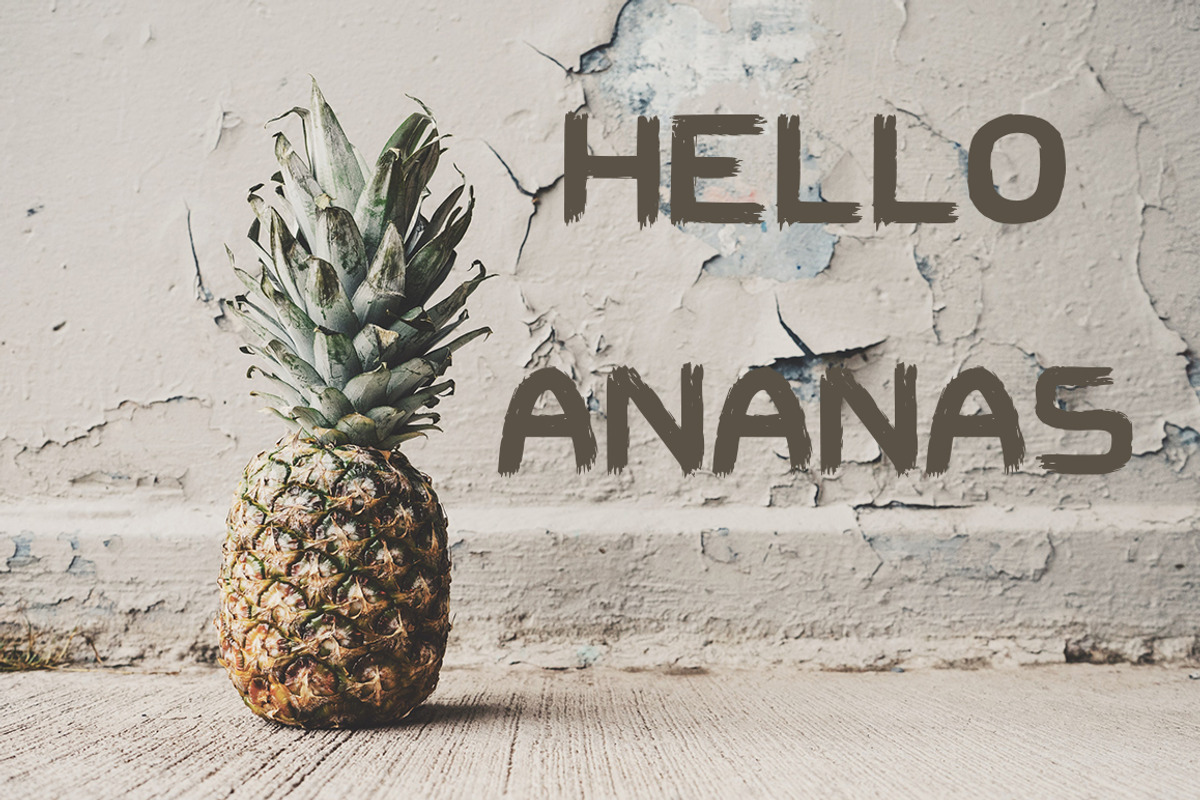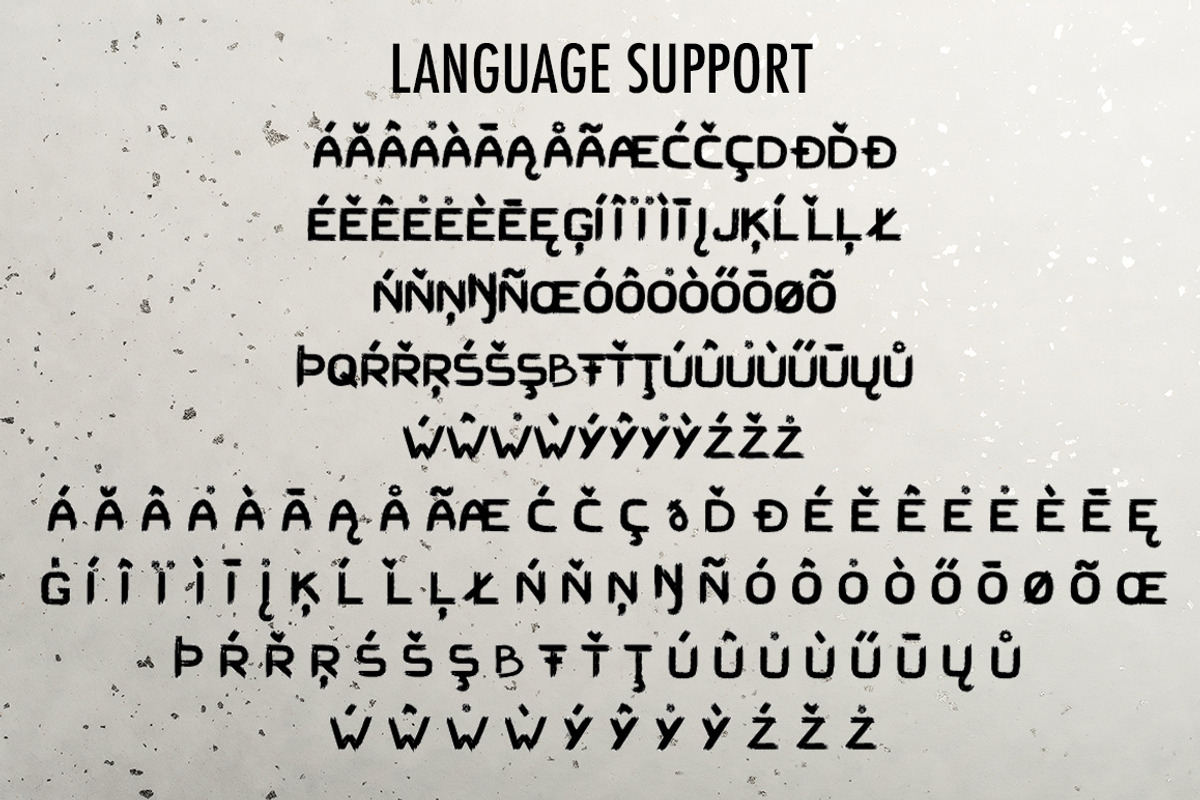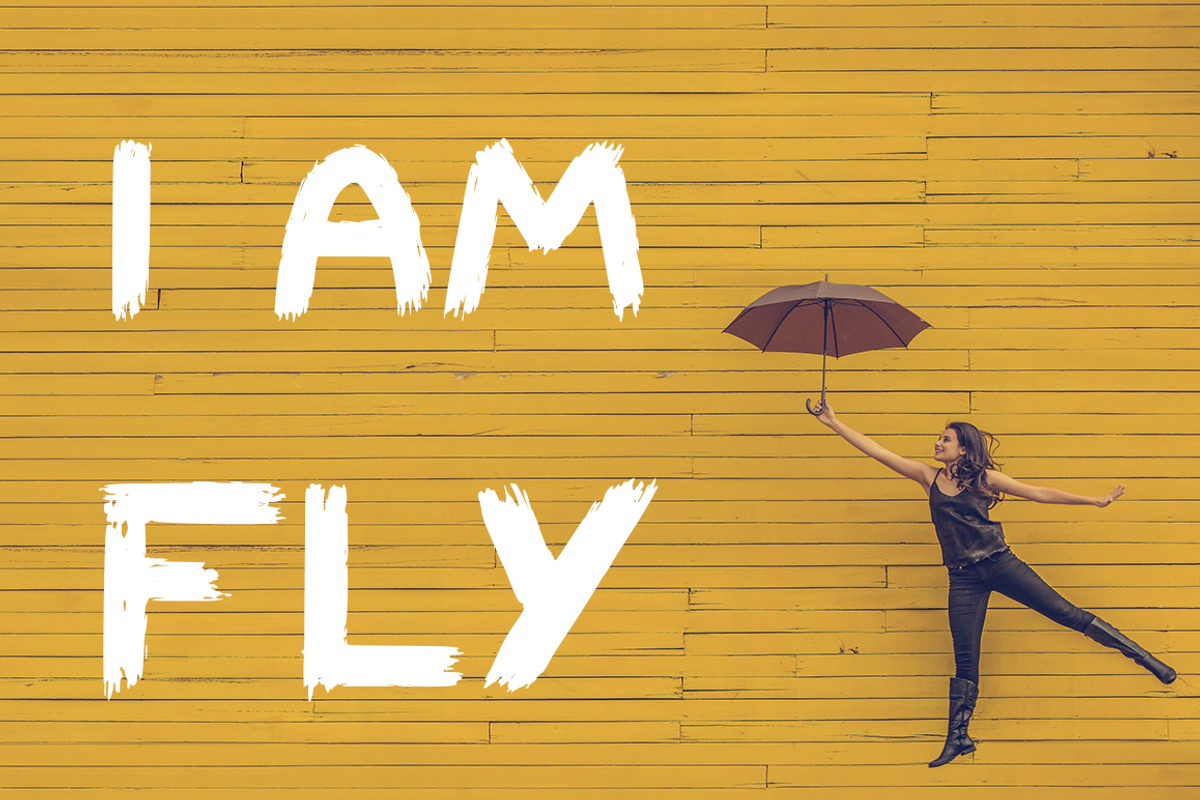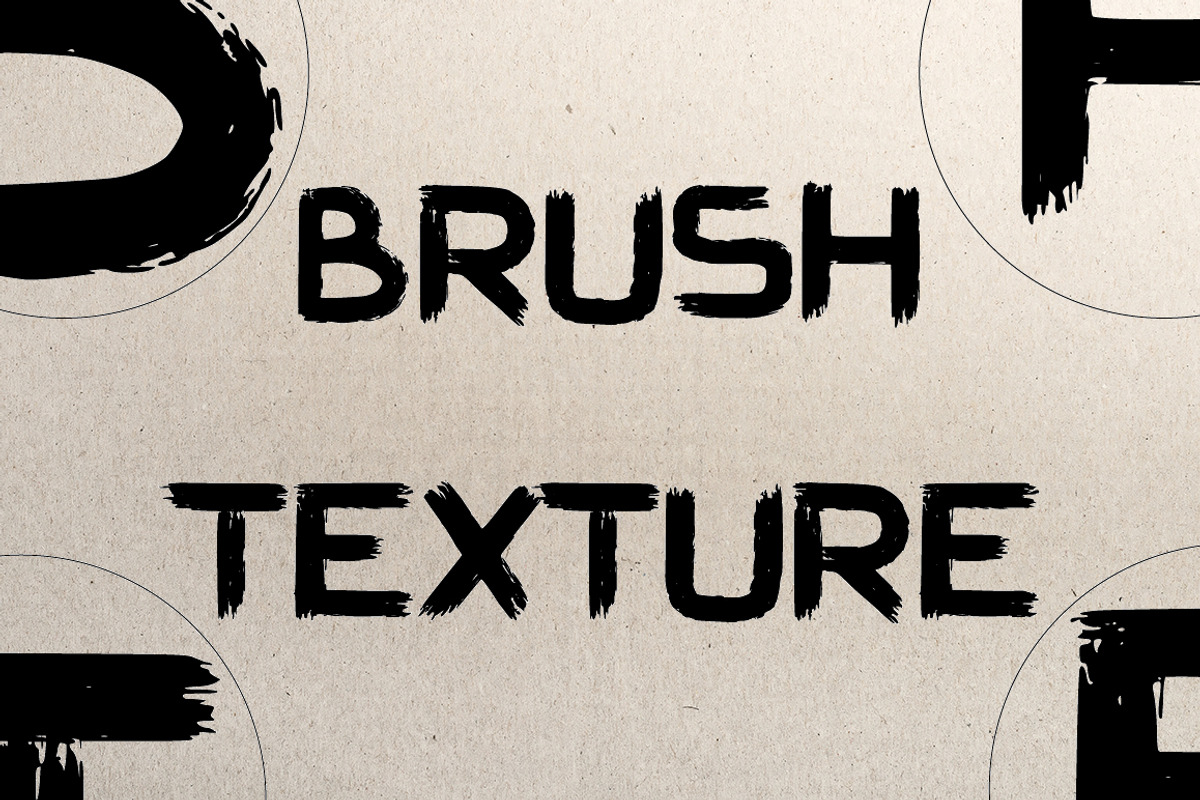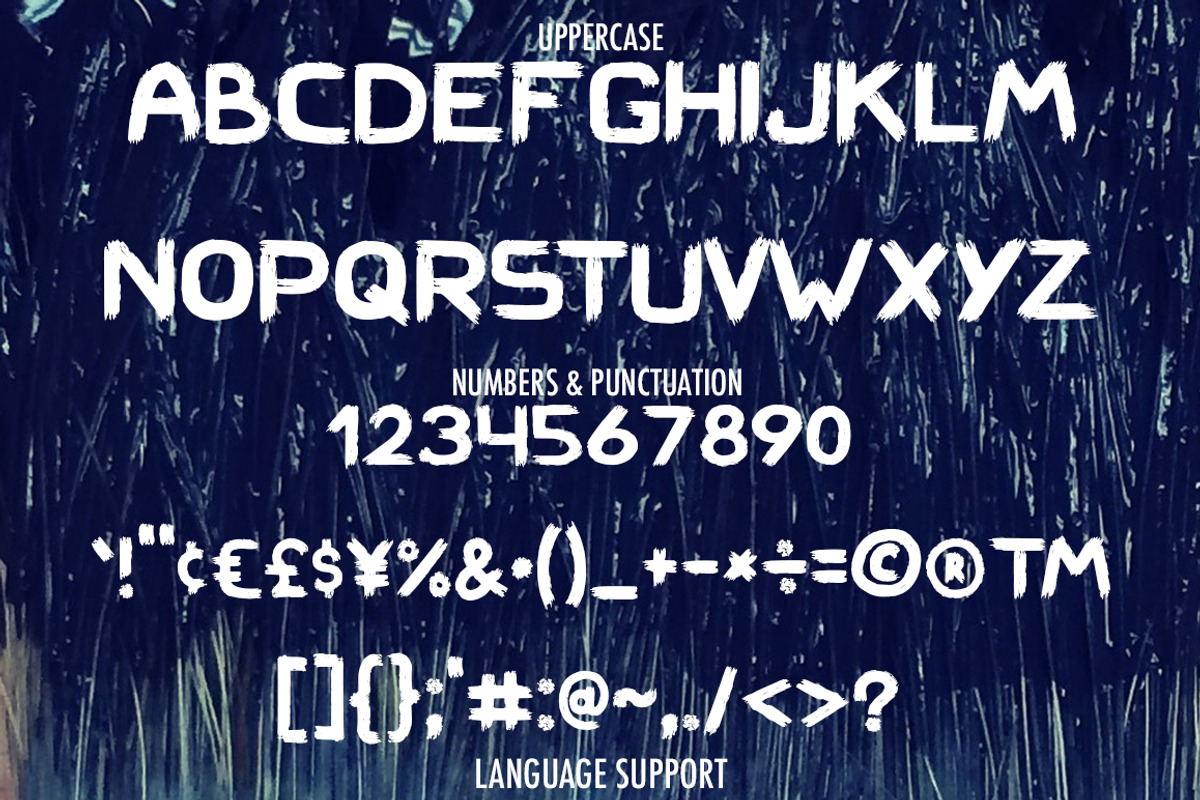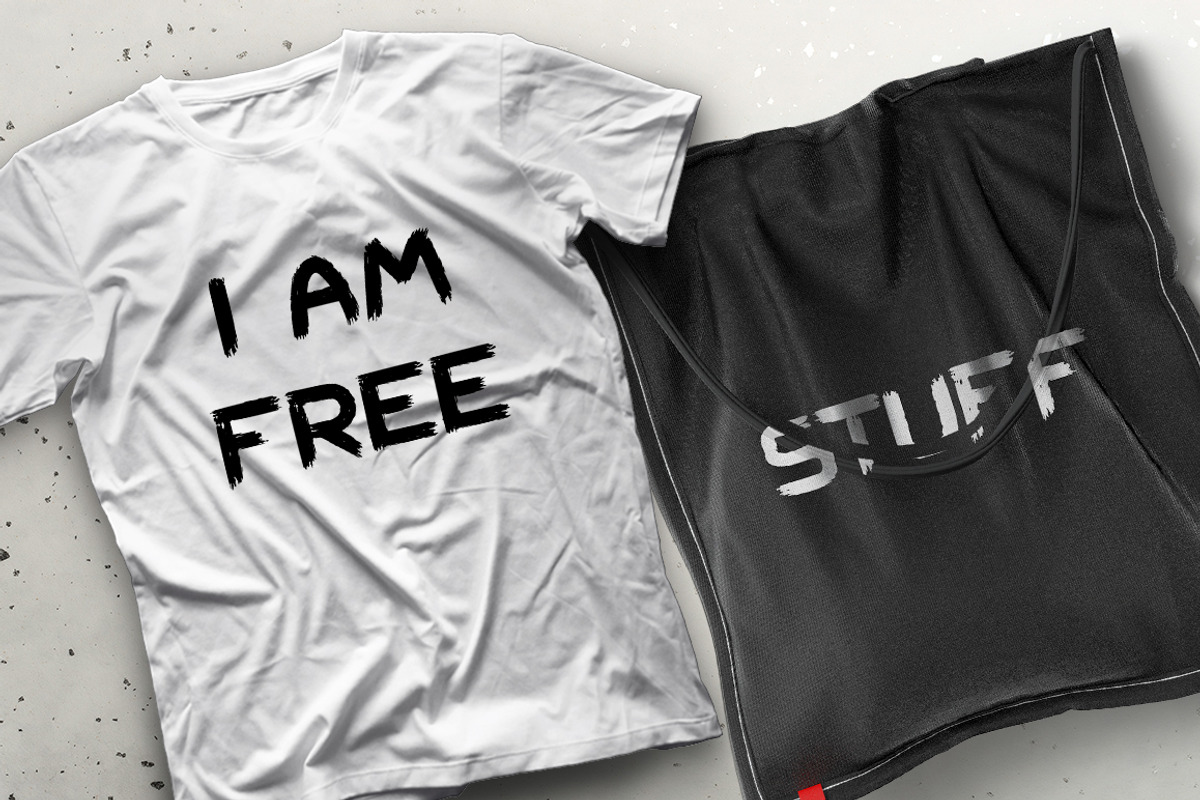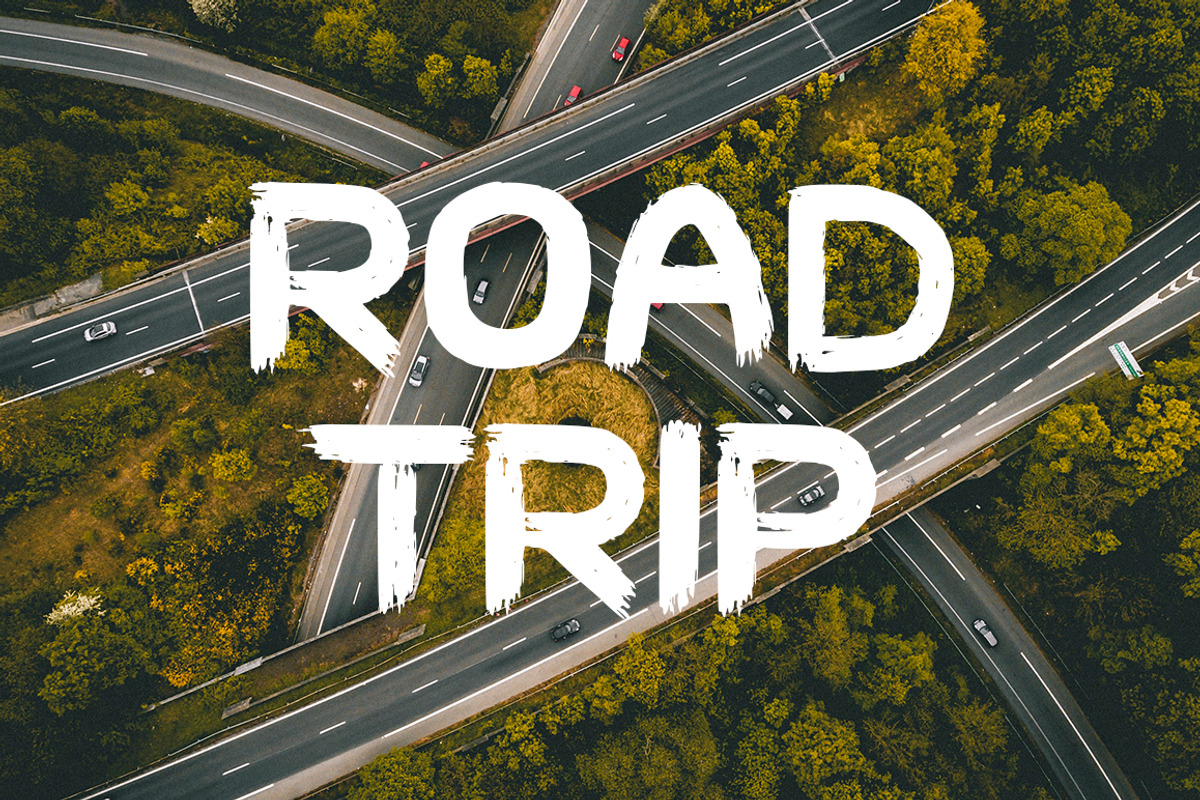
Hard Brush - bold uppercase font
Introducing the newHard Brushfont - an uppercase font drawn with a huge painter's brush with tons of texture and a huge character.
Hard Brushis a display font that will help your design to stand out from the crowd. It looks great on apparel, posters and product packaging.
- Extensive language support is included - just type message in the text box below and see if all characters you’ll need are there.